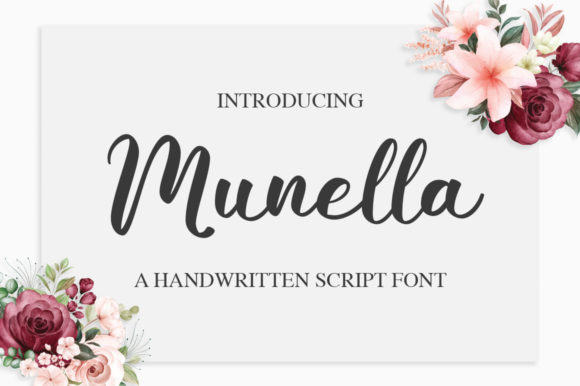
Ignite your designs with Munella, the enchanting script font that captures the essence of elegance and grace. Step into a world of creativity where your words dance and stories come alive. Munella's beautifully crafted characters, infused with a touch of whimsy, will leave a lasting impression on your audience.
Embrace the magic of handwritten artistry as Munella transforms your invitations, thank-you cards, quotes, greeting cards, logos, and business cards into captivating masterpieces. Its versatility knows no bounds, making it the perfect choice for adding a personal touch to any design project.
With Munella's PUA encoding, you'll have effortless access to a treasure trove of swashes and glyphs, unlocking infinite possibilities for customization. Unleash your creativity and let your imagination soar as you weave your words into works of art.
Munella is not just a font; it's an experience. Its delicate strokes and flowing curves will captivate your audience, leaving them spellbound by your designs. Whether you're a seasoned designer or just starting your creative journey, Munella is the perfect companion to elevate your projects to new heights.
So, dive into the world of Munella and let your designs bloom with elegance and charm. Its beauty and functionality will ignite your passion and inspire you to create designs that leave an unforgettable mark.